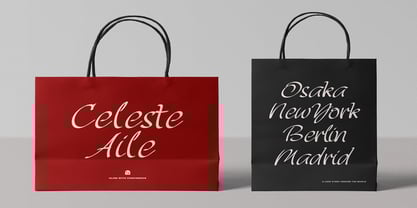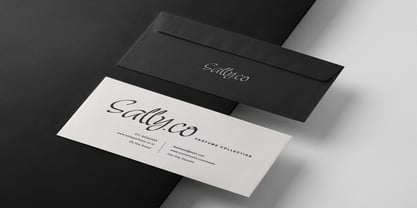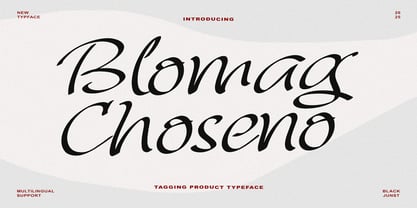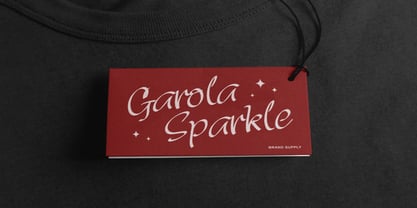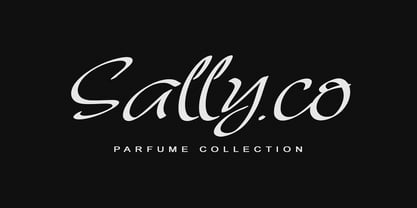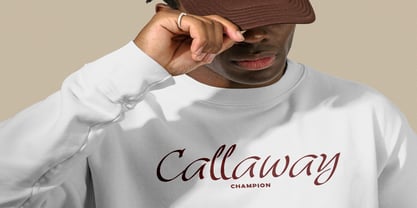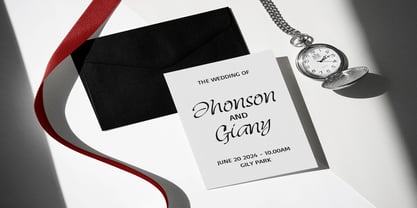
Blomag Choseno
by Black Junst
The Blomag Choseno Font Family was designed by Maulana Semar and published by Black Junst. Blomag Choseno contains 1 styles. More about this family
Introducing Blomag Choseno, a modern handwritten script typeface that adds a personal, elegant, and confident touch to your creative projects. With its smooth curves and expressive strokes, this typeface captures the natural flow of hand lettering while maintaining a bold and polished appearance, making it ideal for contemporary branding. It strikes a perfect balance between sophistication and warmth, ensuring versatility across various design applications. Blomag Choseno is perfect for product branding, logos, packaging, labels, invitations, social media graphics, posters, and headline designs that require a distinctive handwritten character. Featuring clean letterforms with consistent spacing, it guarantees readability while preserving its organic, handwritten feel. The flowing connections and stylish curves enhance its effectiveness for brand identities that aim to convey authenticity, creativity, and memorability. Whether designing for lifestyle brands, fashion, food packaging, or promotional materials, this typeface delivers a strong visual presence that makes your message stand out with charm and personality. Ideal for both digital and print media, Blomag Choseno is a versatile choice for any designer looking to create impactful and engaging visuals.